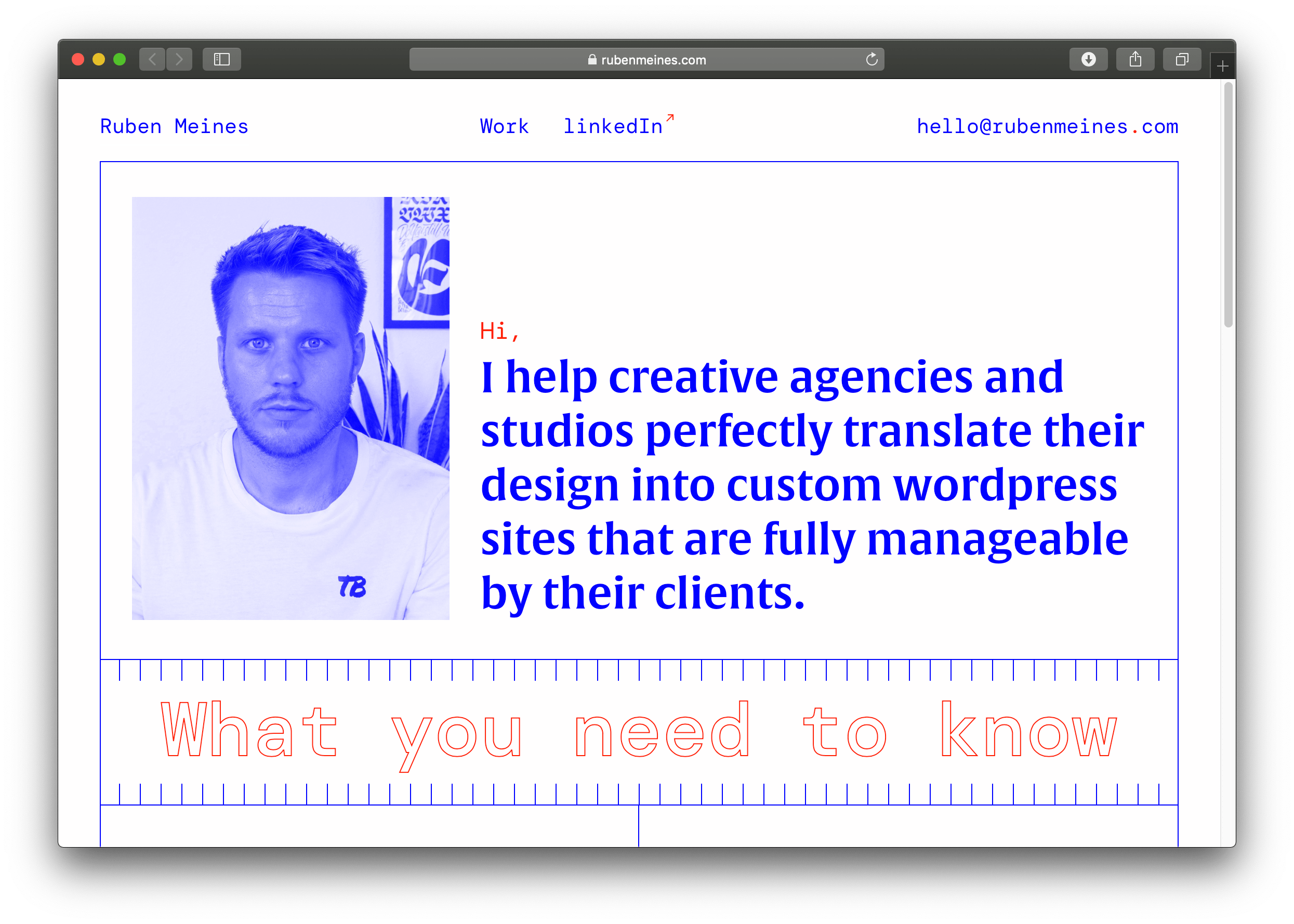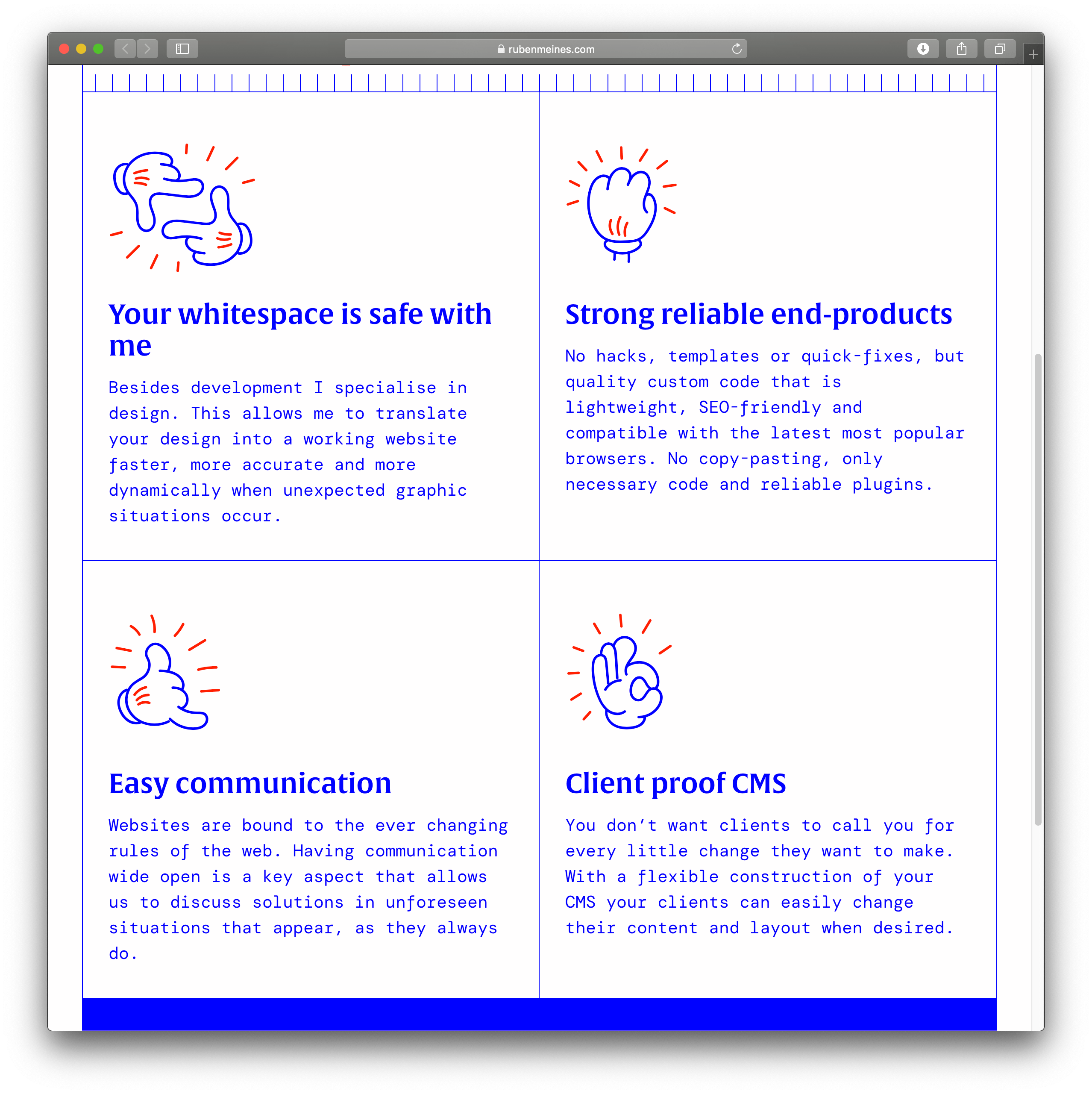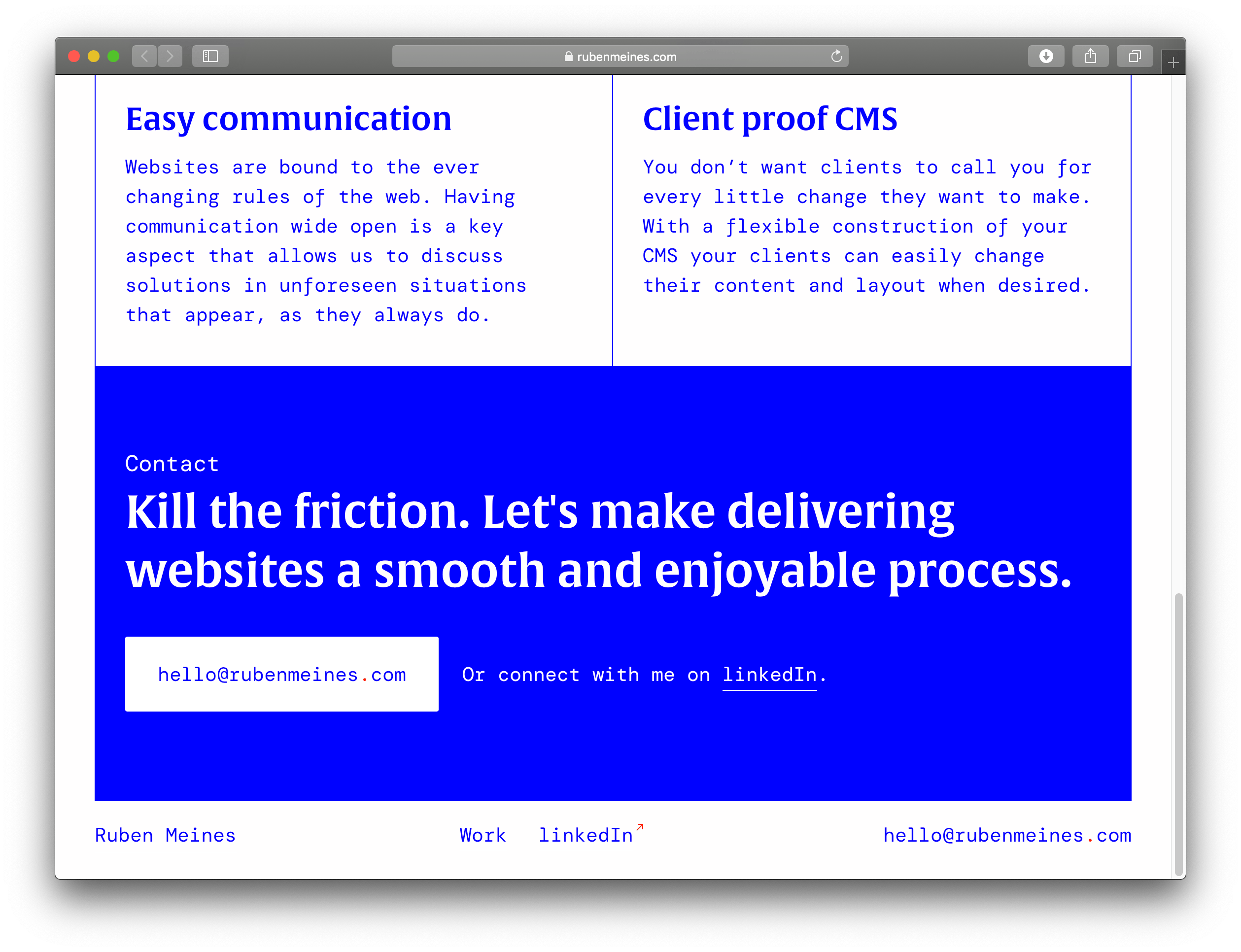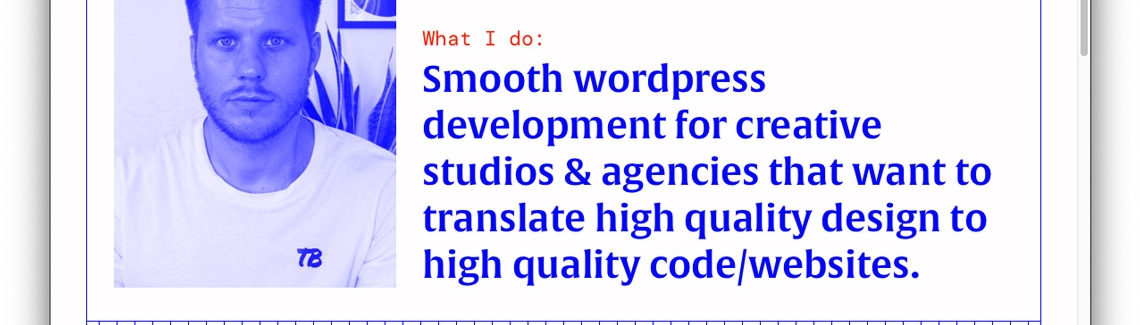
Alverata in portfolio site
Wordpress developer Ruben Meines set his portfolio site in Alverata and a coding font for a crisp look.
Ruben Meines, a Wordpress developer based in The Netherlands, helps agencies and creative studios turn their high-quality designs into high-quality Wordpress sites. For his own portfolio site, Meines uses Alverata, a typeface designed by Gerard Unger.
Alverata was made with low contrast and sharp serifs to create distinct glyphs, a perfect pairing for screens. When set next to a code-style font, the difference brings a much needed human element to a portfolio site.